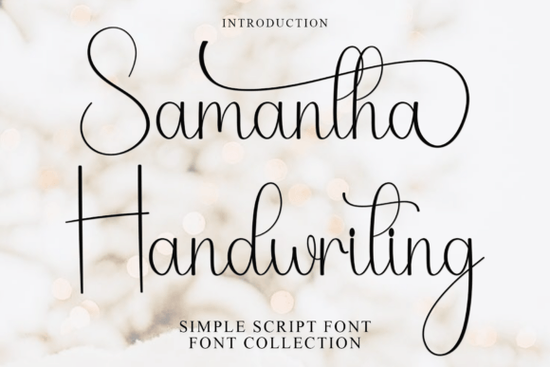
If you've been searching for a friendly, hand-drawn typeface that works across a range of creative projects, the Samantha Handwriting font is worth a close look. It's a casual script font with rounded, playful strokes that give designs a warm and approachable personality. Whether you're making wedding invitations, social media posts, or print-on-demand products, this typeface brings that hand-lettered charm without needing actual calligraphy skills.
What Makes Samantha Handwriting Stand Out?
There are thousands of script fonts available online, so what sets this one apart? A few things:
- Legibility Despite being a handwriting style, the letterforms are clear and easy to read at various sizes.
- Warmth The rounded strokes feel genuinely hand-drawn, not robotic or overly polished.
- Versatility It works for both digital designs and print projects, from Instagram stories to greeting cards.
The overall feel is relaxed and creative. It doesn't try to look formal or elegant and that's exactly the point. For projects that need a personal, down-to-earth touch, it fits naturally.
What Can You Use This Handwriting Font For?
This typeface works well across a surprisingly wide range of applications. Here are some popular uses among designers and small business owners:
- Wedding and event invitations The soft, casual lettering style pairs beautifully with floral designs and watercolor backgrounds.
- Social media graphics Quote posts, story templates, and promotional banners all benefit from a handwritten look that feels authentic.
- Print-on-demand products Mugs, tote bags, T-shirts, and stickers with a hand-lettered style tend to connect well with buyers.
- Blog headers and website accents A script font can break up the monotony of standard web typefaces and add visual interest.
- Scrapbooking and journaling Digital scrapbookers often look for fonts that mimic real handwriting for a personal feel.
How Does It Compare to Other Script Fonts?
Each of these fonts serves a different creative need. Samantha Handwriting sits comfortably in the middle casual enough to feel personal, but clean enough to stay professional.
Tips for Getting the Most Out of Handwritten Fonts
Using a script font well takes a little more thought than dropping it into a layout. Here are a few practical tips:
- Watch your spacing. Handwriting fonts often need manual kerning adjustments, especially between certain letter pairs. Don't rely entirely on default settings.
- Pair it with a simple sans-serif. A clean, minimal sans-serif font balances the visual texture of a script font and keeps designs readable.
- Use it sparingly for body text. Handwritten fonts work best for headlines, short phrases, and accent text not paragraphs.
- Test at multiple sizes. Always preview your design at both small and large scales to make sure the font holds up.
Is Samantha Handwriting Right for Your Project?
If your design needs a typeface that feels hand-crafted, approachable, and easy to work with, this font checks those boxes. It's especially well-suited for:
- Designers who want a reliable everyday script font for client work
- Crafters making personalized gifts and home décor
- Print-on-demand sellers looking for trendy yet timeless typography
- Small business owners creating branded social media content